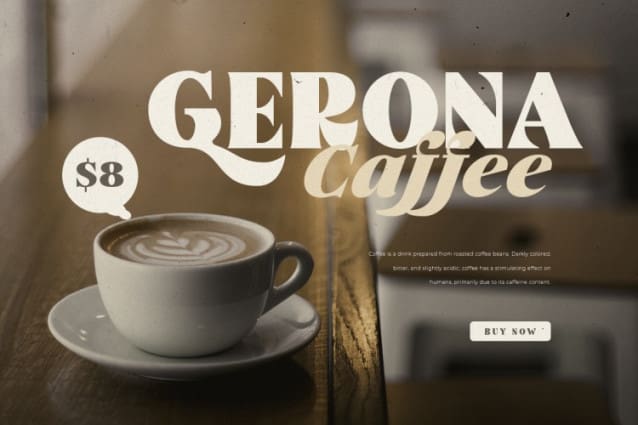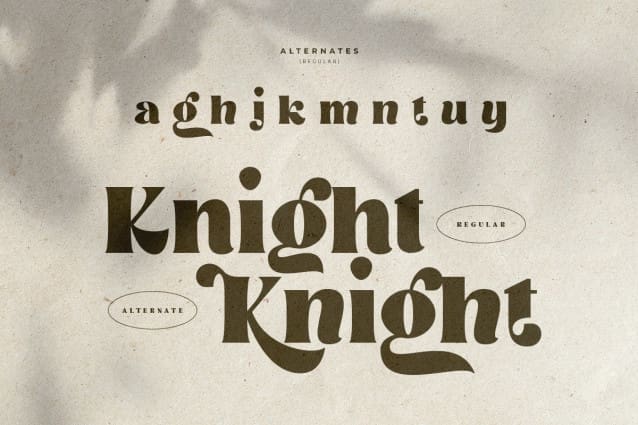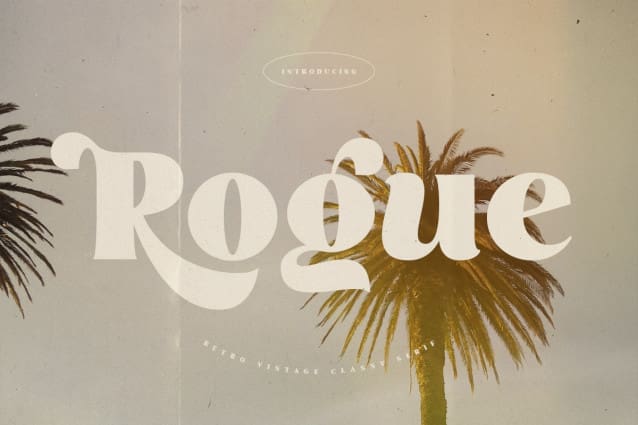
Rogue Font
Rogue Font is a Retro Vintage Classy Serif Font. A new font that we created special for branding needs, with unique characters and awesome alternative characters are ready to add value of your brand. It so nice to leverage designer or product owner that need solutions to make their design look more beauty and modern. And specially for Salute font, We prepared any swash and any alternate characters to help you create unlimited variations for your creative needs.